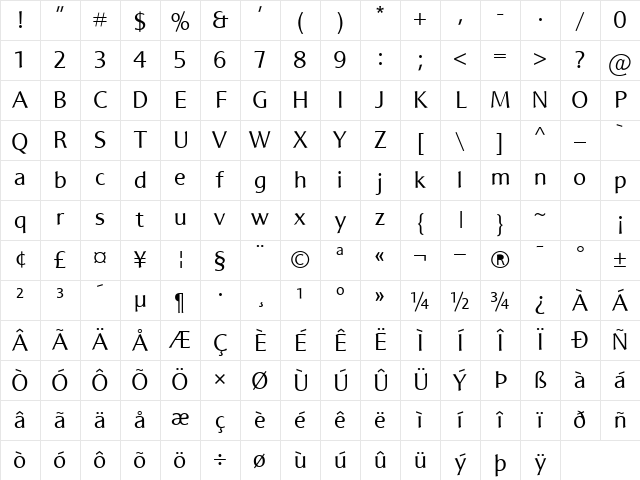
Complete AI Signa Medium glyph index. Displaying only characters natively supported by AI Signa Medium font.
AI Signa is a composed and adaptable typeface that performs quietly and consistently across a wide range of design contexts.